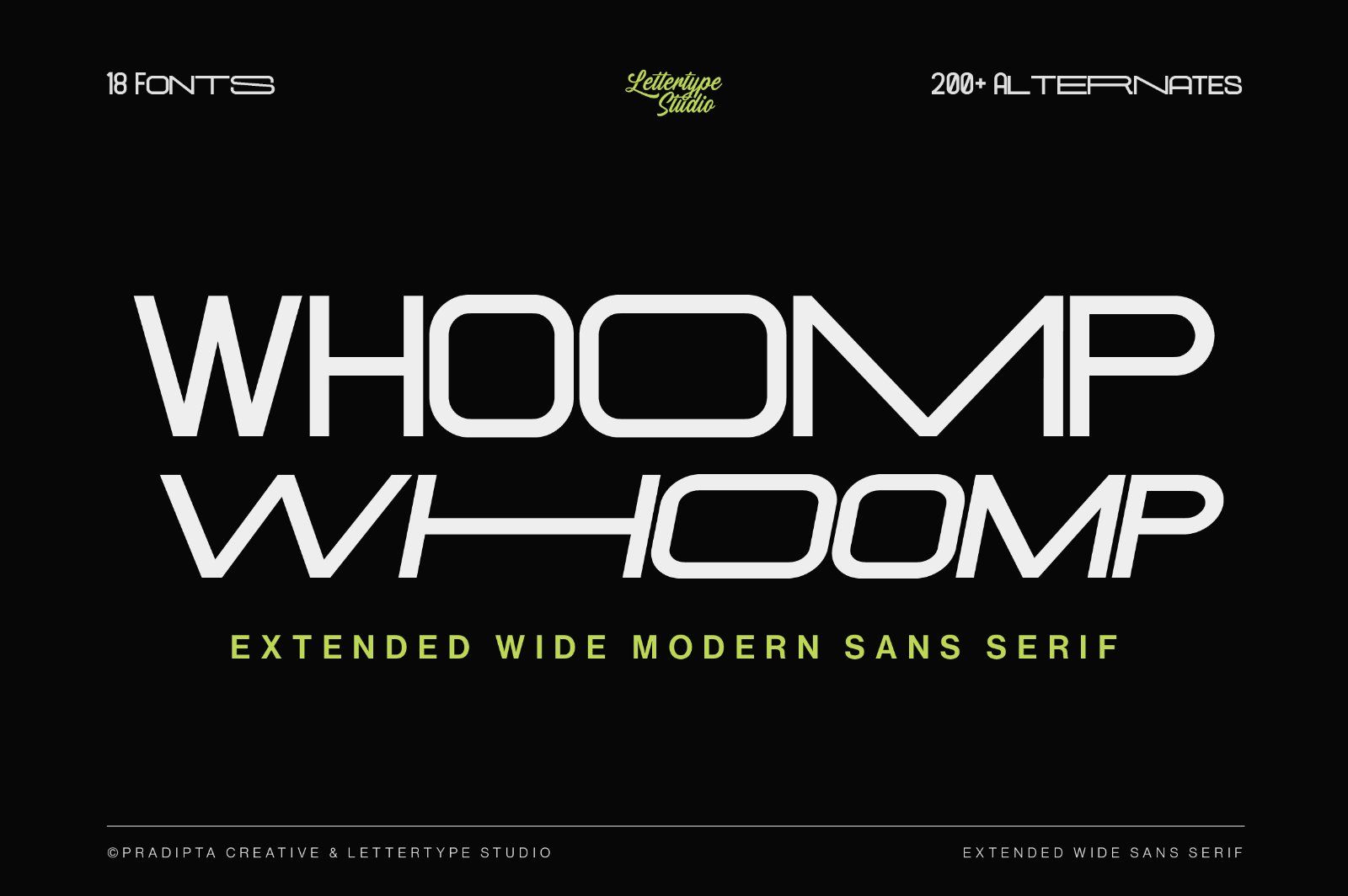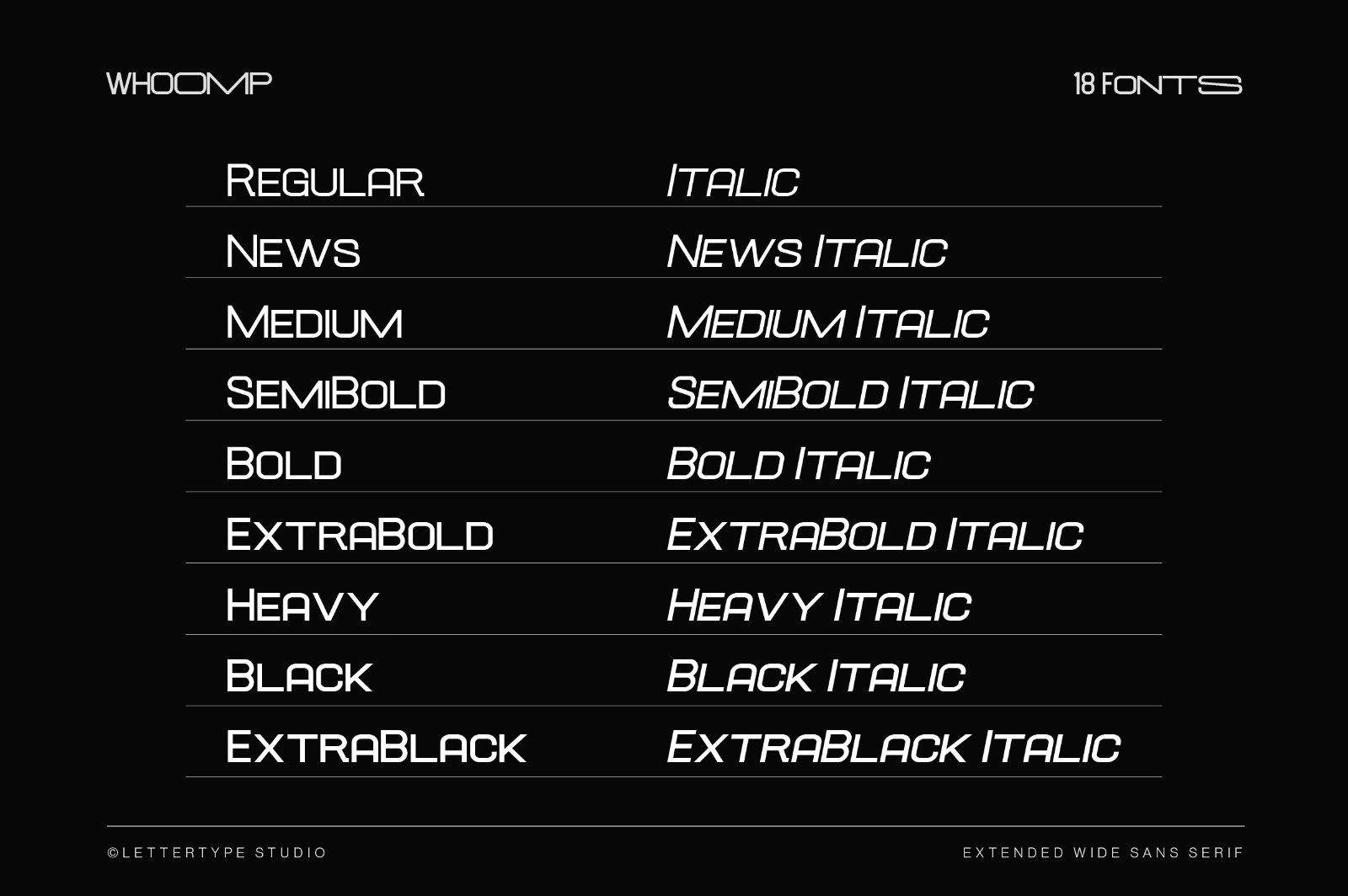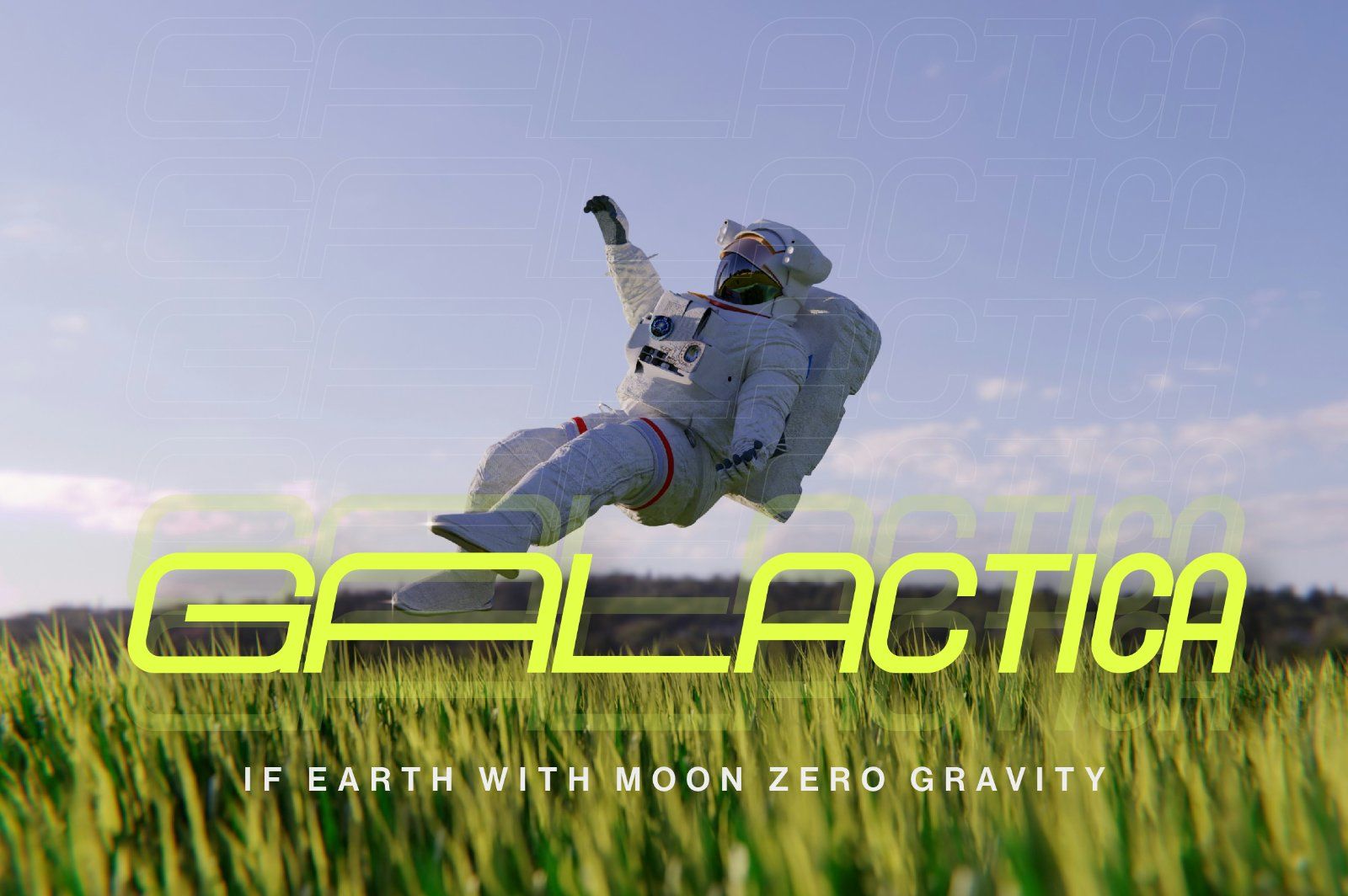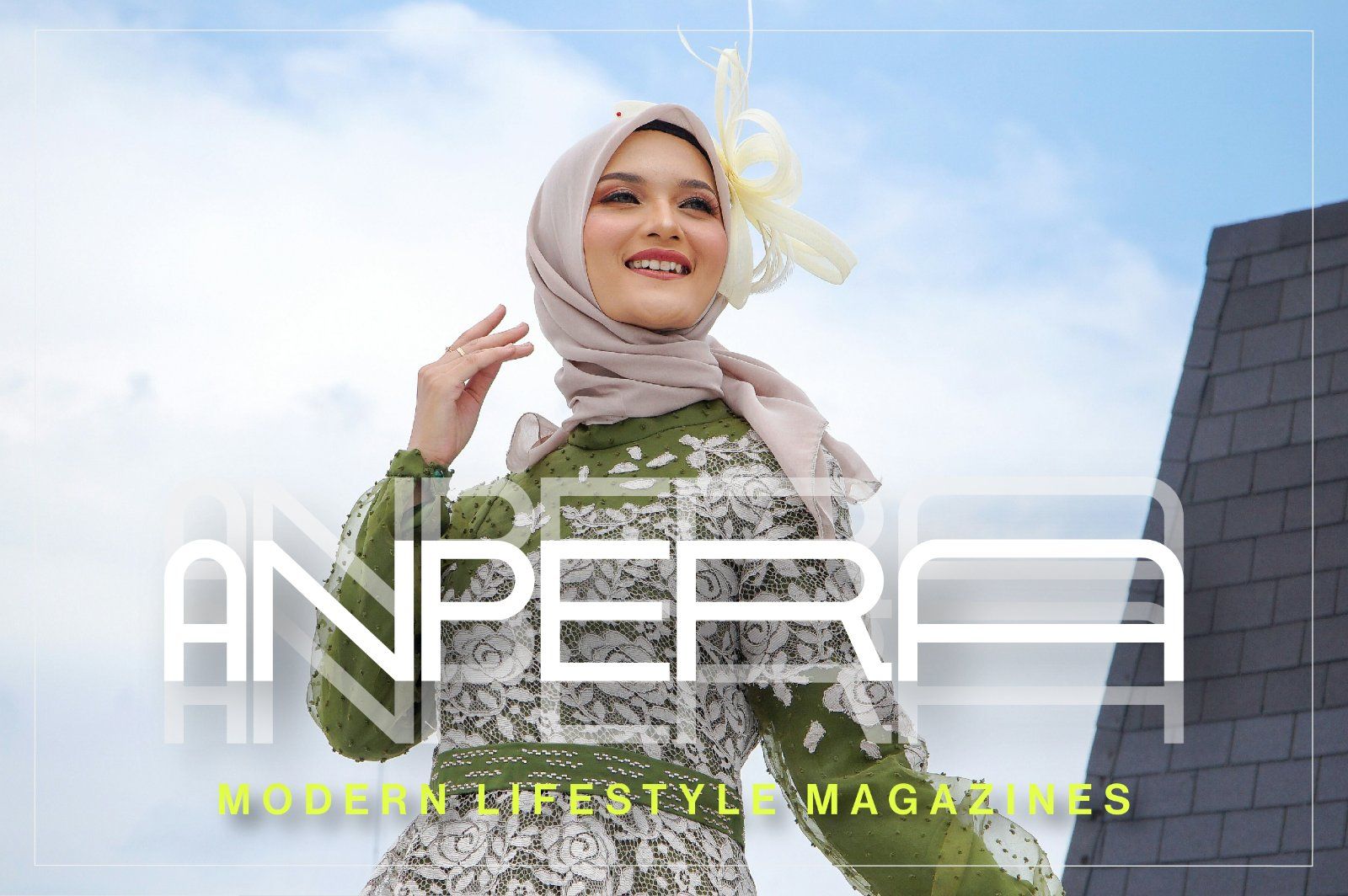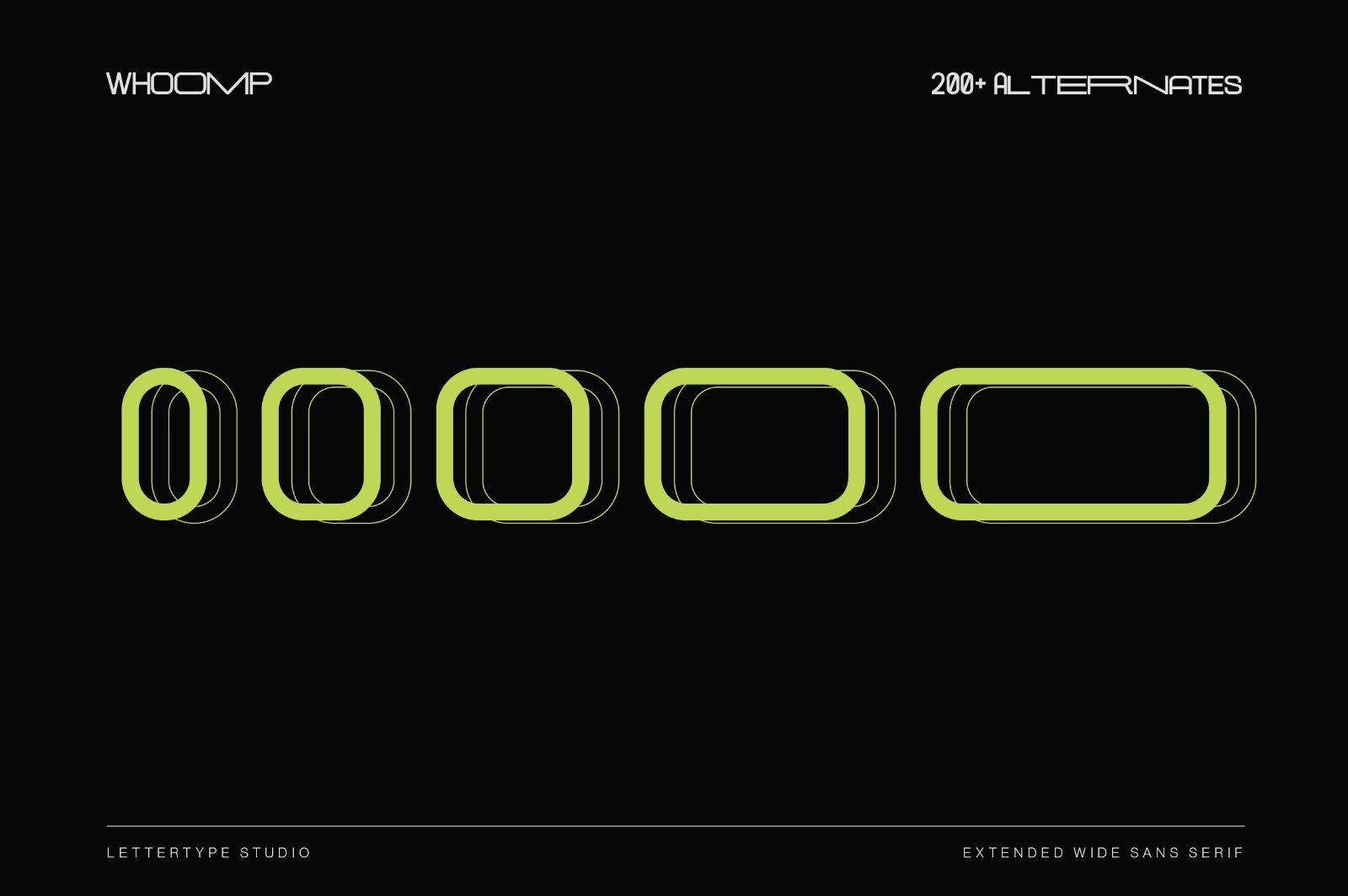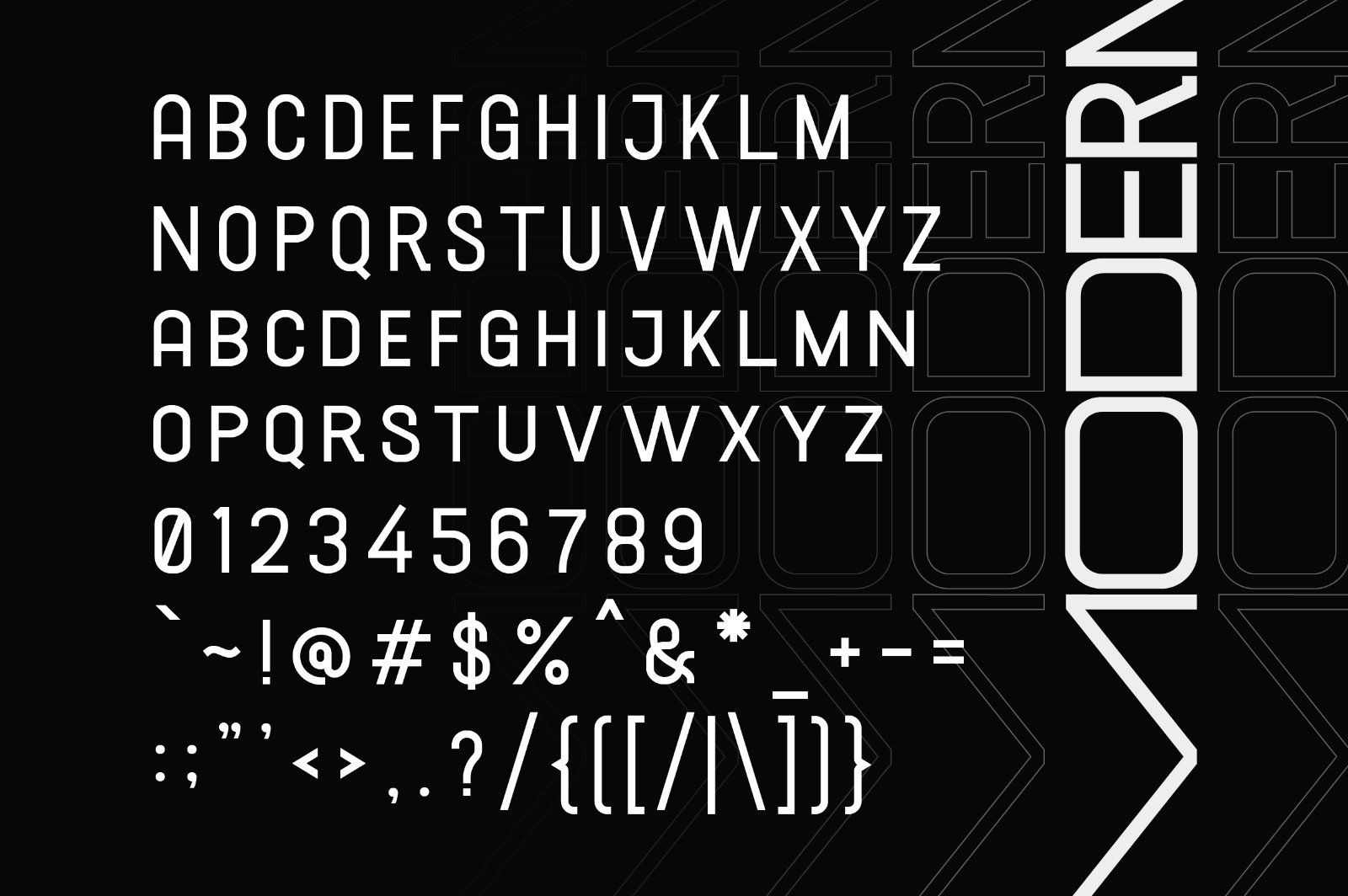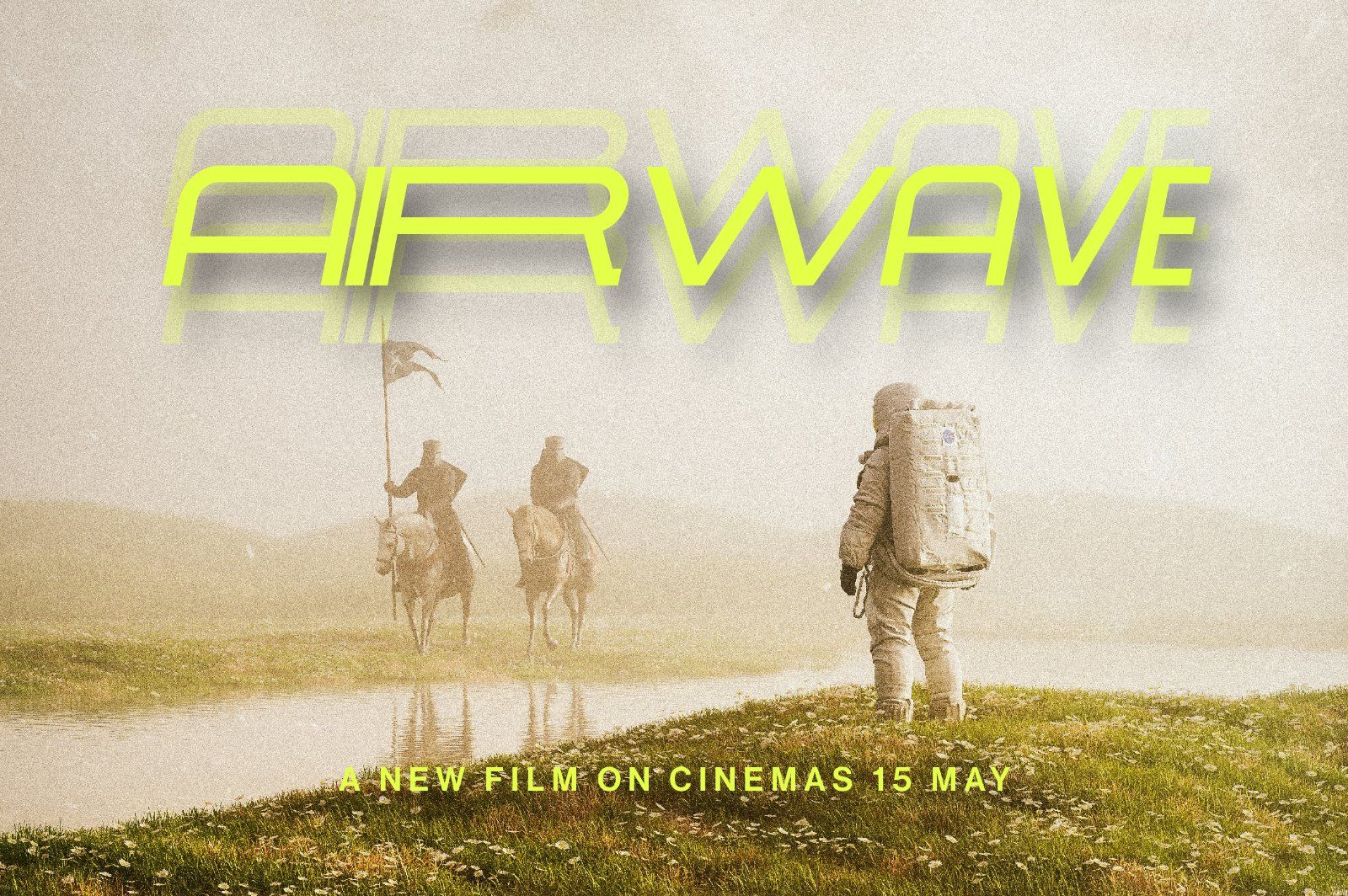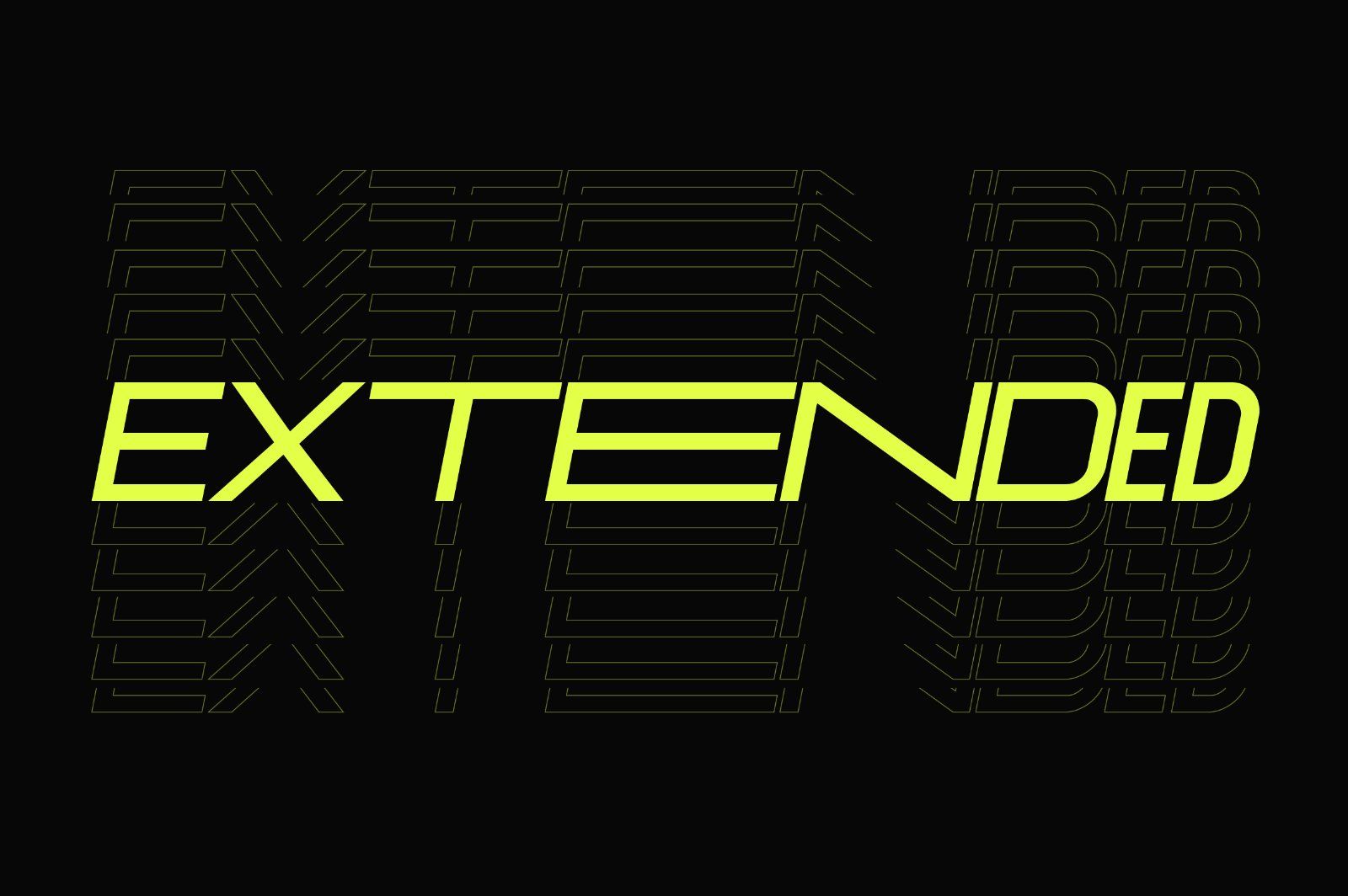
Whoomp is an extended wide modern sans serif font inspired by urban culture with strong and unique characters. Welcome to the new extended wide sans serif with over 100+ alternate glyphs for endless customization and creative control of your projects.
Whoomp Comes With:
• Lowercase & Uppercase
• Alternates & Ligature
• Font Family (10 Styles)